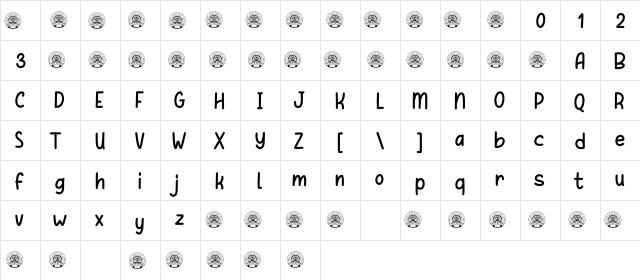
Lovely Crafter Demo Version Regular
| Foundry | Tacikworks |
| Designer | Ivan Yahya |
Design Context for Lovely Crafter Demo Version Typeface
Lovely Crafter Demo Version offers clean, dependable letterforms without strong stylistic allegiance, making it a practical choice for designers who need flexibility.